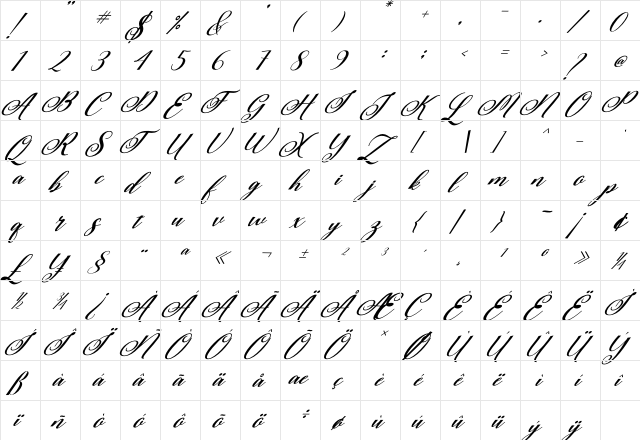
Rubeckia Italic Regular
| Foundry | Kong Font |
| Designer | Kong Font |
Design Context for Rubeckia Italic Typeface
Rubeckia Italic is a composed and adaptable typeface that performs quietly and consistently across a wide range of design contexts. The dynamic lean of this cut emphasises speed and emphasis in any layout.